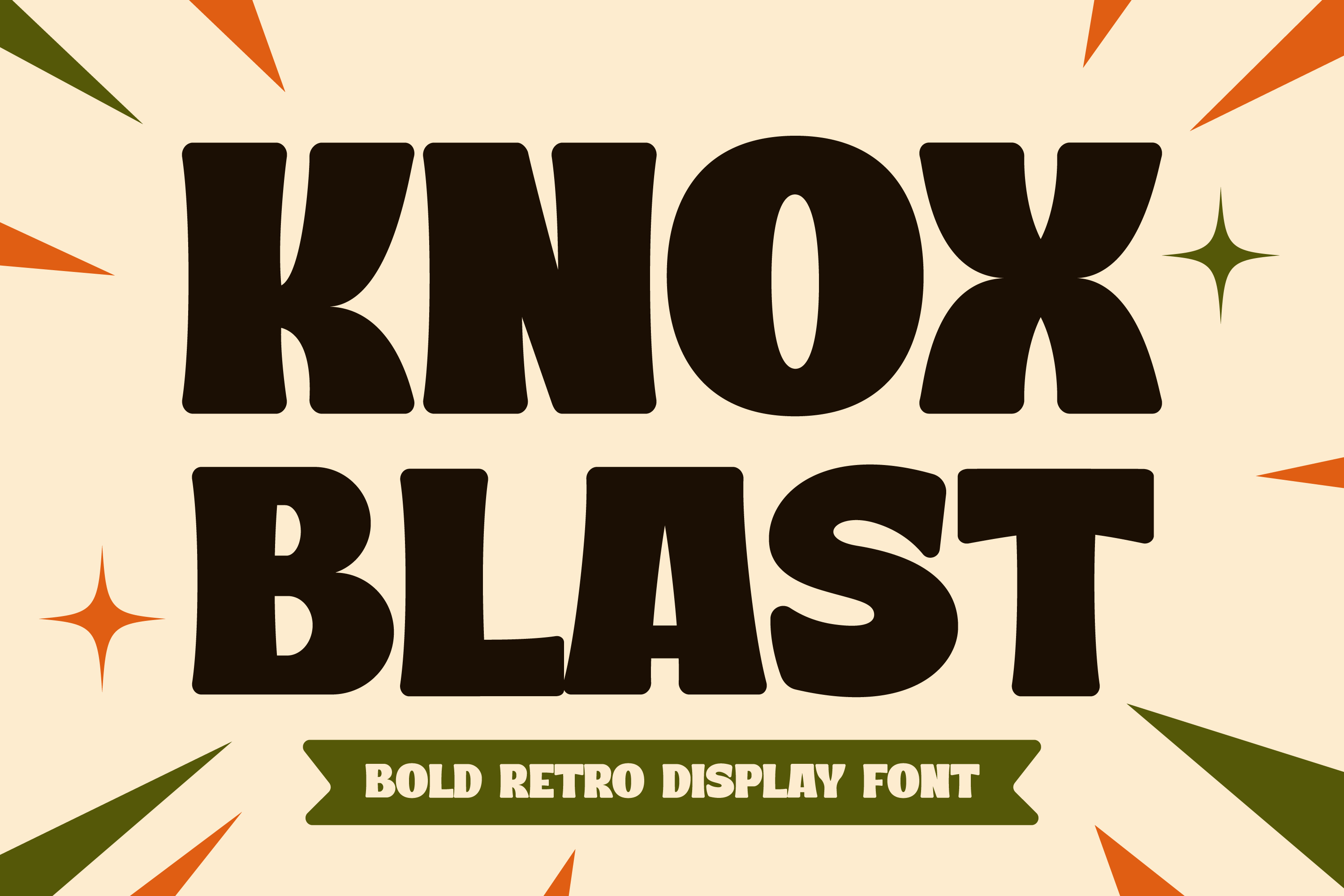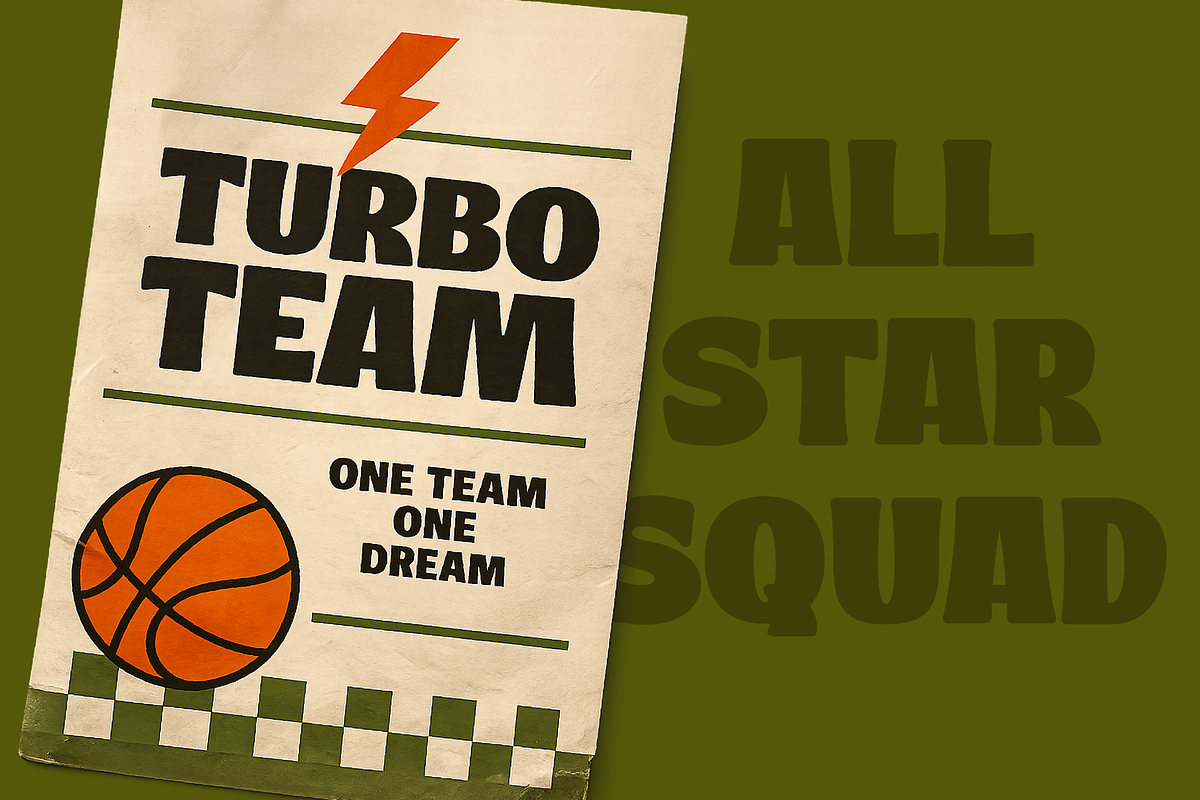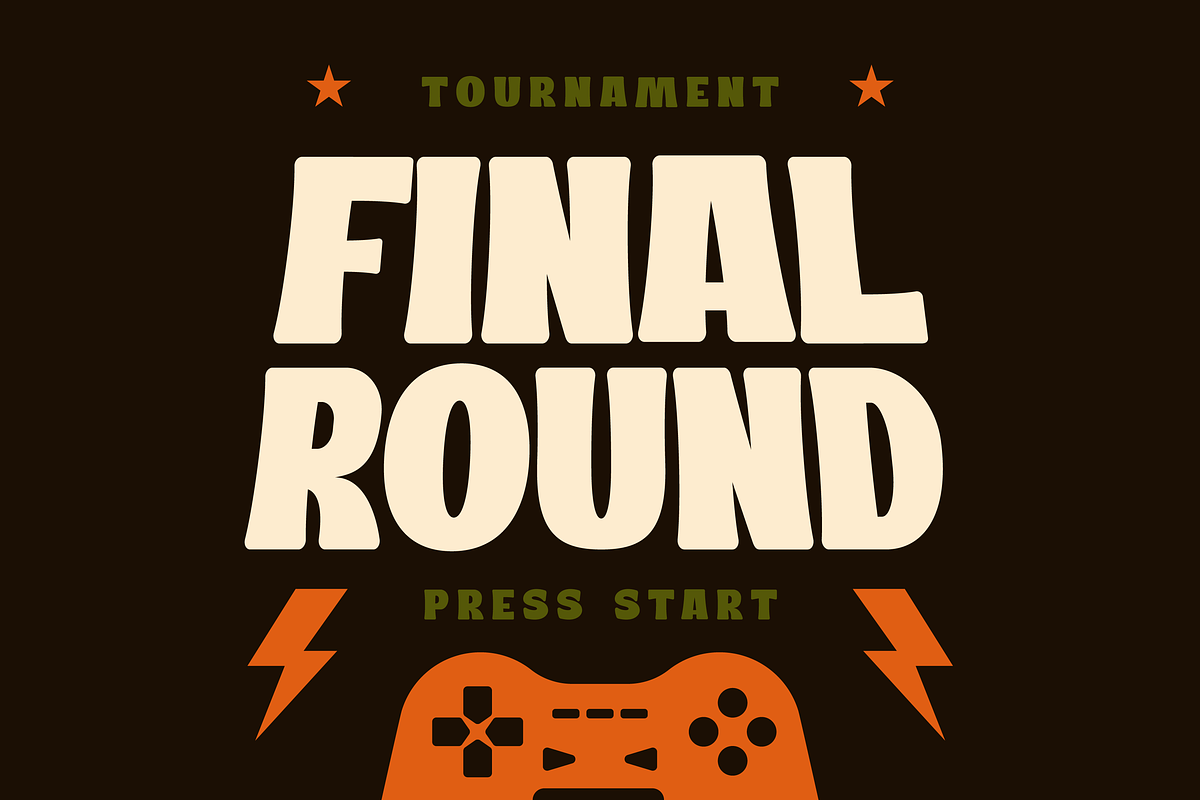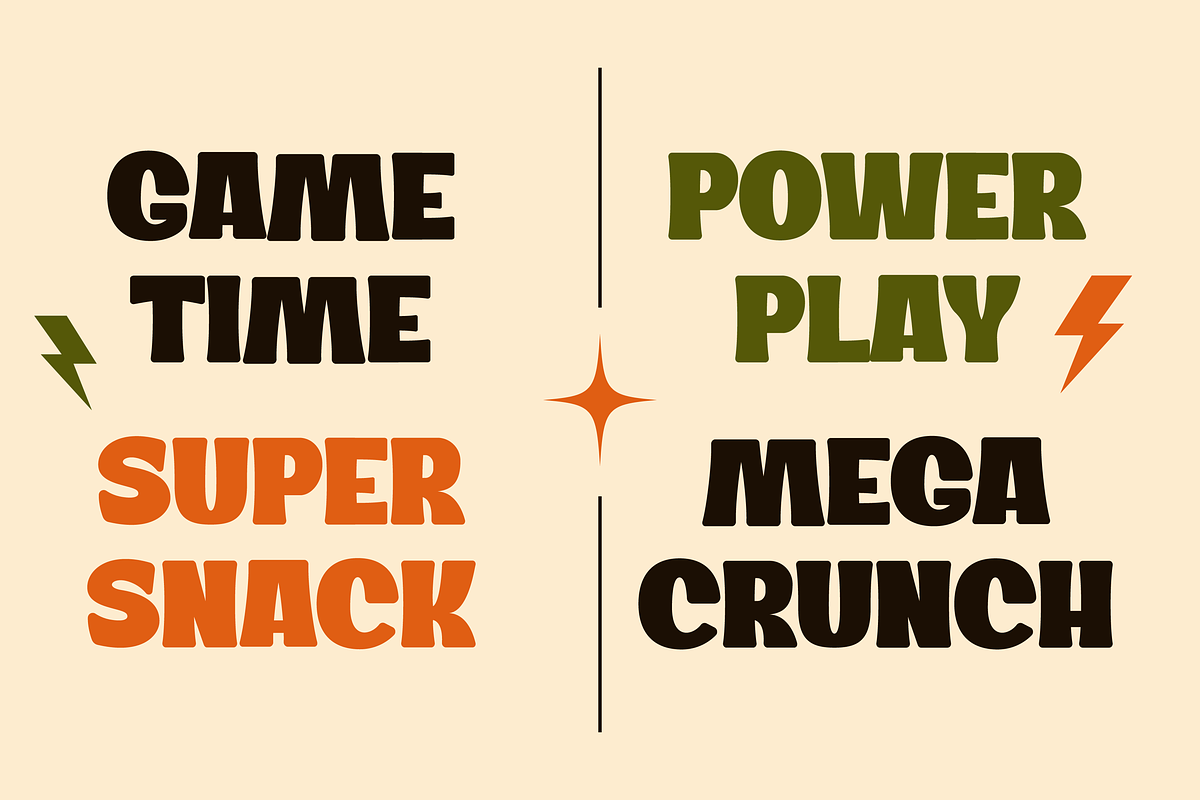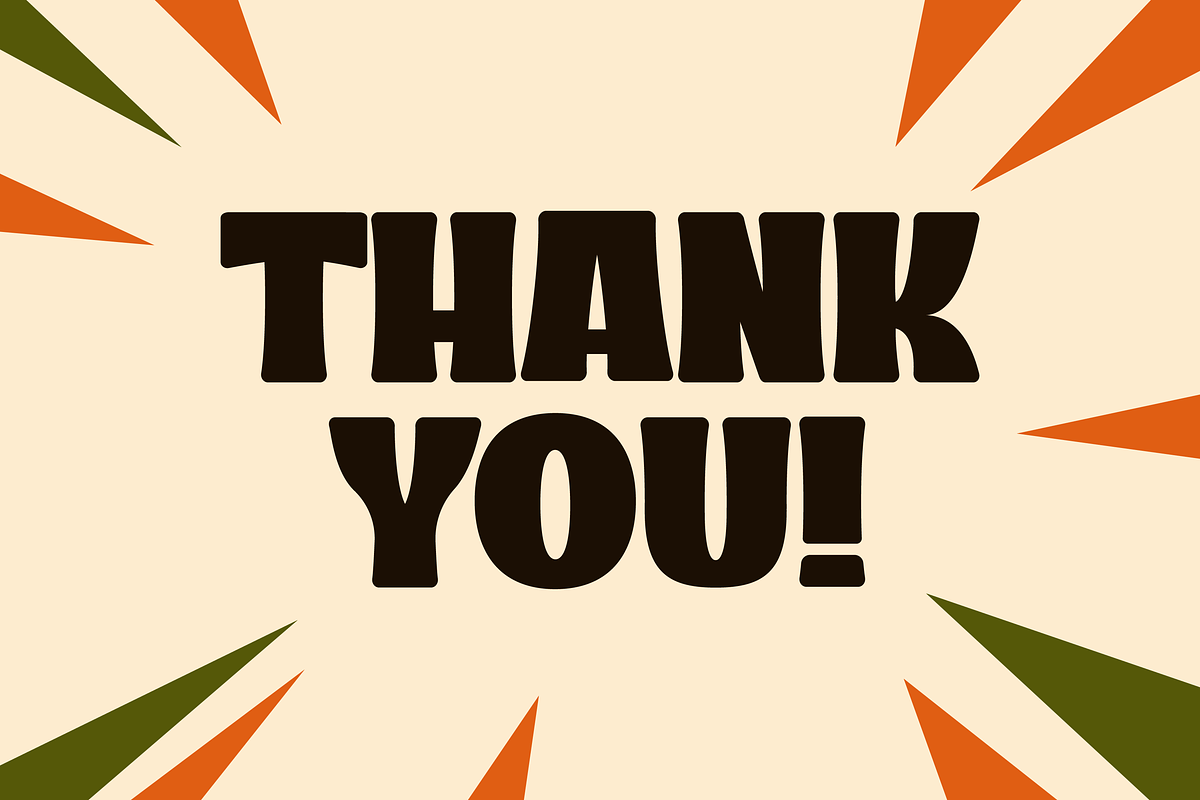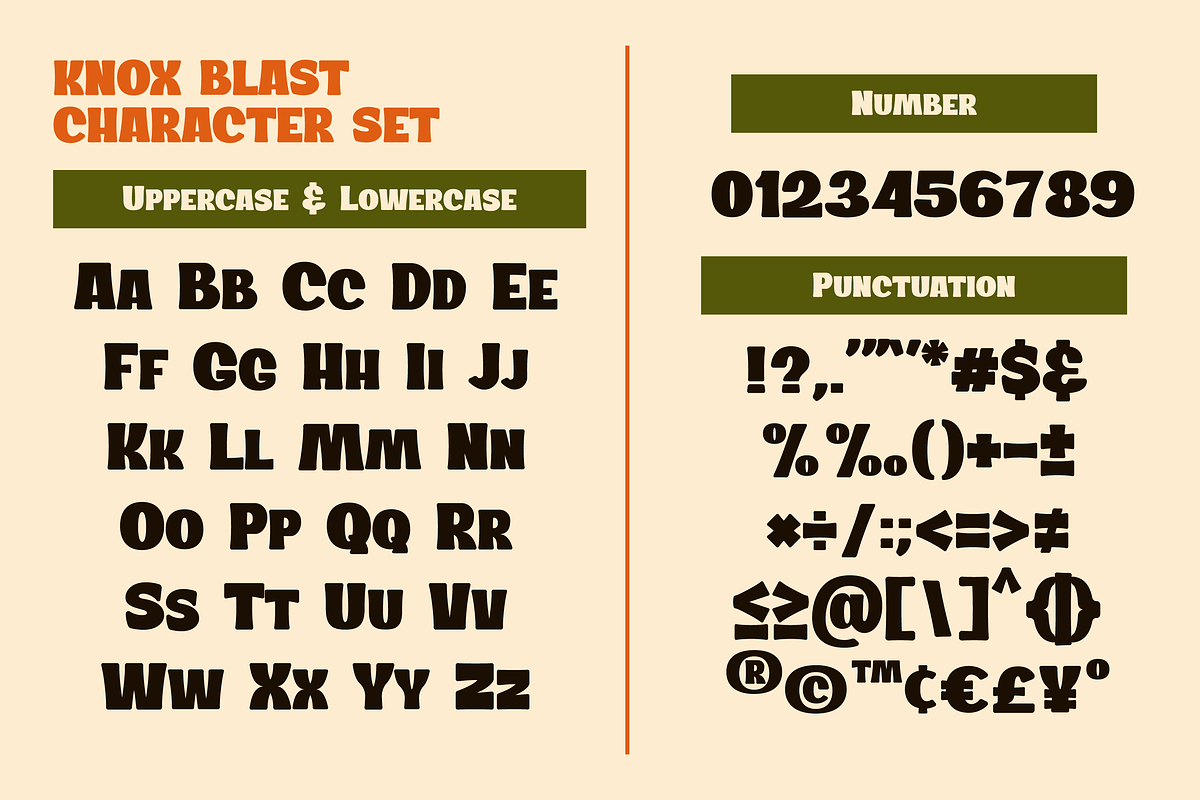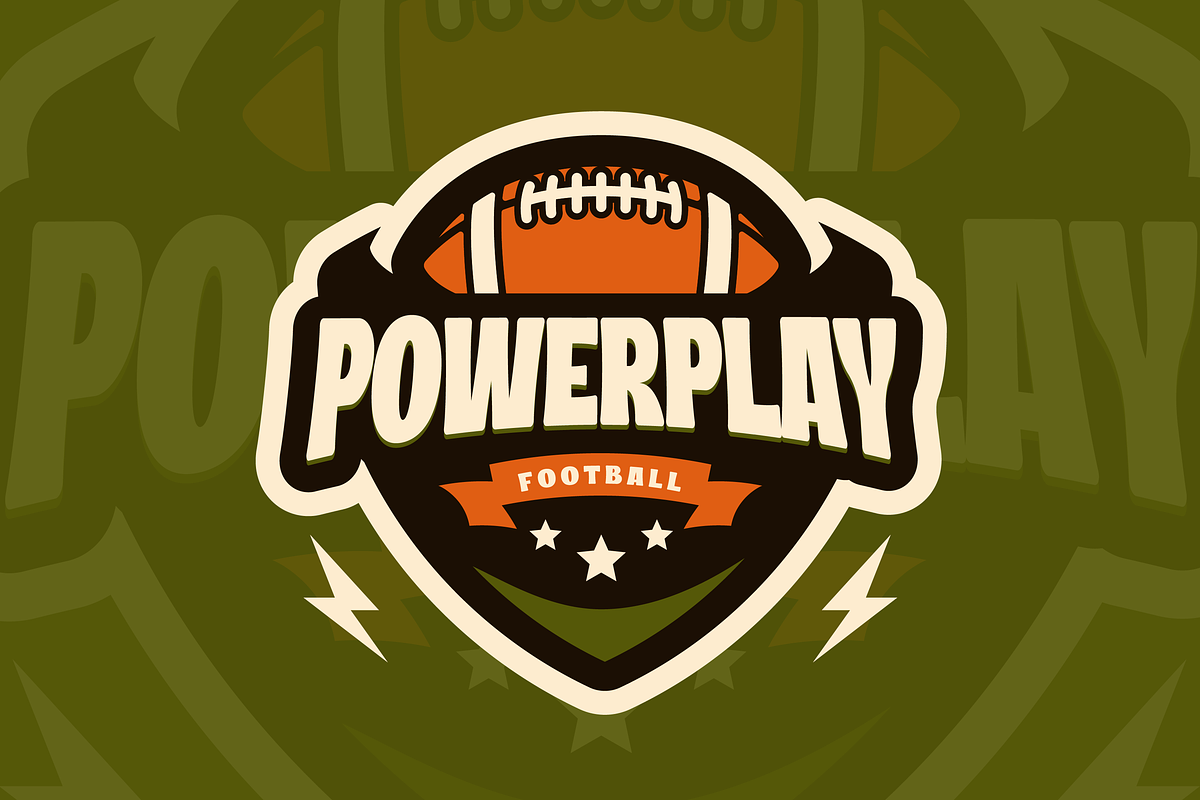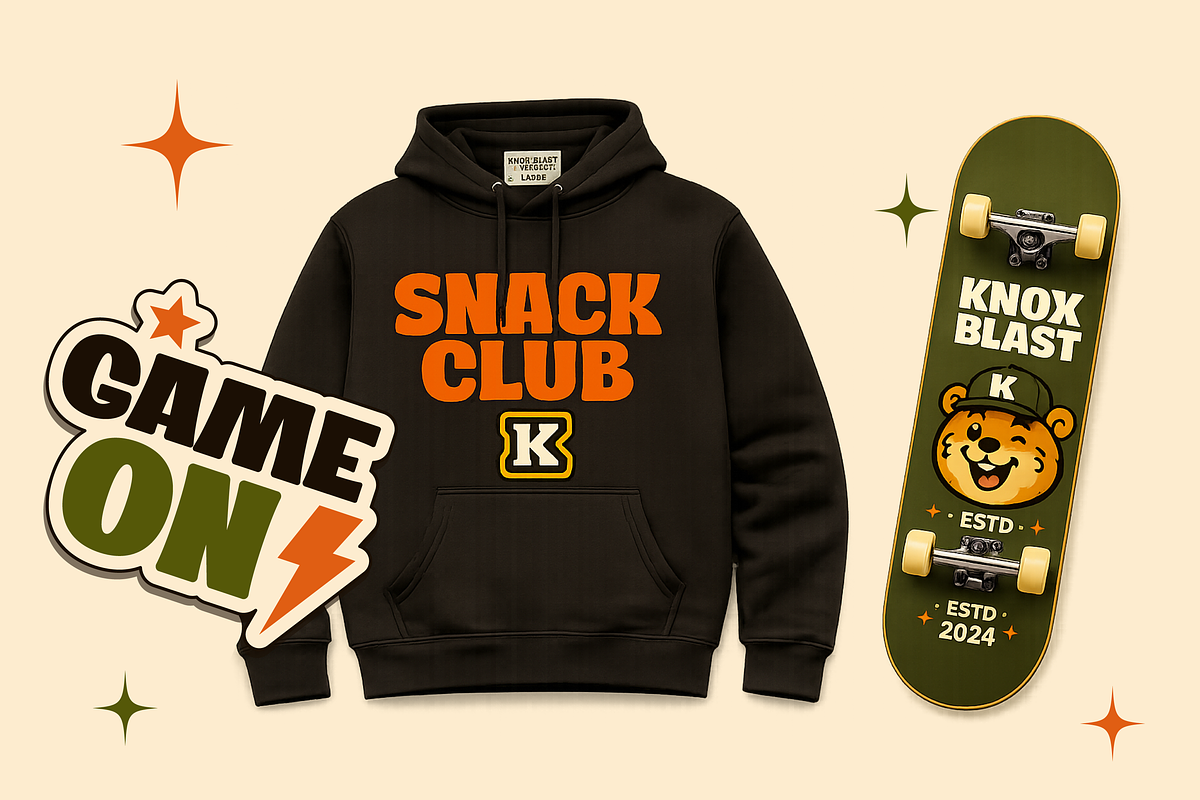
Knox Blast - Bold Retro Display Font
Knox Blast is a bold retro display font with a strong vintage personality and powerful chunky shapes. Inspired by classic retro posters and groovy typography, this font delivers a fun, energetic, and eye-catching look that instantly stands out.
Its thick letterforms and playful curves make Knox Blast perfect for branding, posters, packaging, logos, merchandise, social media graphics, stickers, and creative headline designs that need a bold nostalgic vibe.
With its expressive retro style and modern readability, Knox Blast brings a funky and confident atmosphere to any creative project.